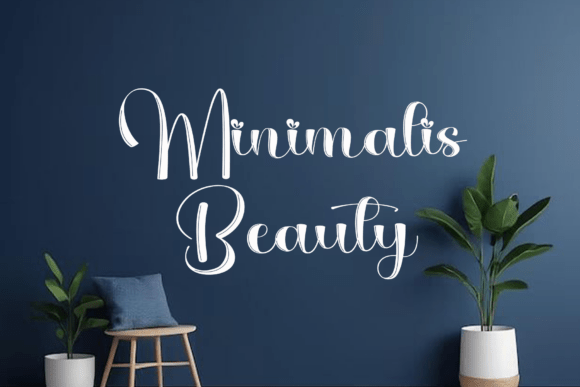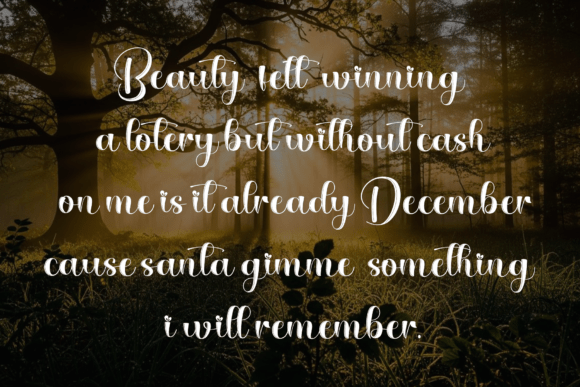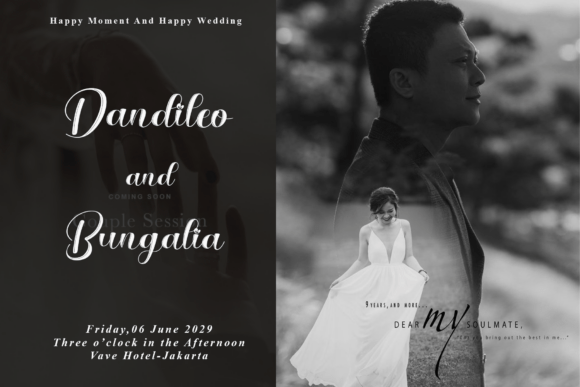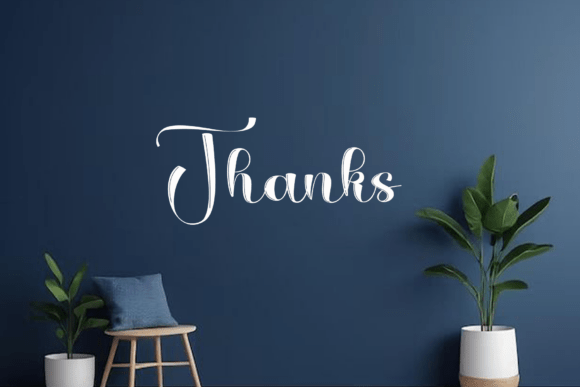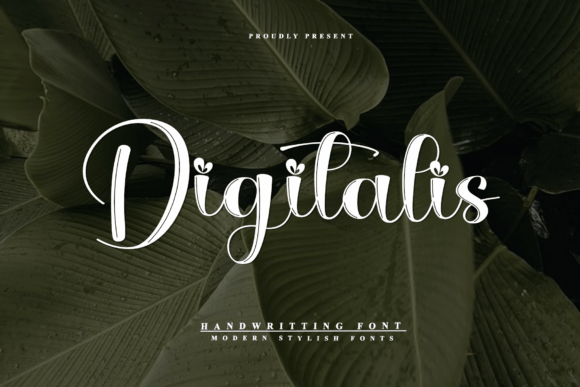
Introducing Digitalis Font: Elevate Your Designs with Elegance and Flair
In the world of typography, a well-crafted font can make all the difference in elevating your design from ordinary to extraordinary. If you’re a designer, craft or a creative professional looking for a unique and stylish handwriting font, look no further than Digitalis. This stunning font boasts a strong, modern, and stylistic flair that’s sure to captivate your audience and leave a lasting impression.
The Characteristics of Digitalis Font
Digitalis is a handwriting font that exudes elegance and sophistication. Its tall, often bouncy letterforms give it a sense of energy and movement, while its subtle, ornamental loops add a touch of refinement and luxury. The font’s distinctive features include:
• Tall and slender letterforms: Digitalis’ letters are designed to make a statement, with a tall and slender build that adds a sense of drama and flair to your text.
• Bouncy and playful: The font’s bouncy letterforms give it a sense of playfulness and spontaneity, making it perfect for designs that require a touch of personality.
• Subtle ornamental loops: The font’s ornamental loops add a touch of elegance and sophistication, making it suitable for high-end designs and luxury brands.
Digitalis font is versatile and can be used for a wide range of design projects, including:
• Boutique branding: Give your brand a unique and stylish identity with Digitalis font, perfect for boutique labels, packaging, and marketing materials.
• Personalized stationery: Add a touch of elegance to your stationery with Digitalis font, perfect for custom invitations, greeting cards, and letterheads.
• Custom quotes: Make your quotes stand out with Digitalis font, perfect for social media graphics, blog posts, and marketing materials.
• High-end photography watermarks: Add a touch of sophistication to your photography watermarks with Digitalis font, perfect for protecting your work while showcasing your style.
Why Choose Digitalis Font?
With so many fonts available, why choose Digitalis? Here are just a few reasons why Digitalis font stands out from the rest:
• Unique and distinctive: Digitalis font is a one-of-a-kind design that will set your work apart from the crowd.
• Highly individualized: The font’s stylistic flair and ornamental loops make it perfect for designs that require a personal touch.
• Clean and stylish: Digitalis font is designed to be clean and stylish, making it perfect for modern designs and luxury brands.
Tips for Using Digitalis Font
To get the most out of Digitalis font, here are a few tips to keep in mind:
• Use it sparingly: Digitalis font is best used sparingly, as its unique features can be overwhelming if overused.
• Pair it with a neutral font: Pair Digitalis font with a neutral font to create visual interest and add contrast to your design.
• Experiment with colors: Digitalis font looks stunning in a variety of colors, so don’t be afraid to experiment and find the perfect hue for your design.
Digitalis font is a game-changer for designers and creatives looking for a unique and stylish handwriting font. With its tall, bouncy letterforms and subtle, ornamental loops, this font is perfect for boutique branding, personalized stationery, custom quotes, high-end photography watermarks, and any project that needs a clean, stylish, and highly individualized handwritten appearance. So why wait? Give Digitalis font a try today and elevate your designs to new heights!